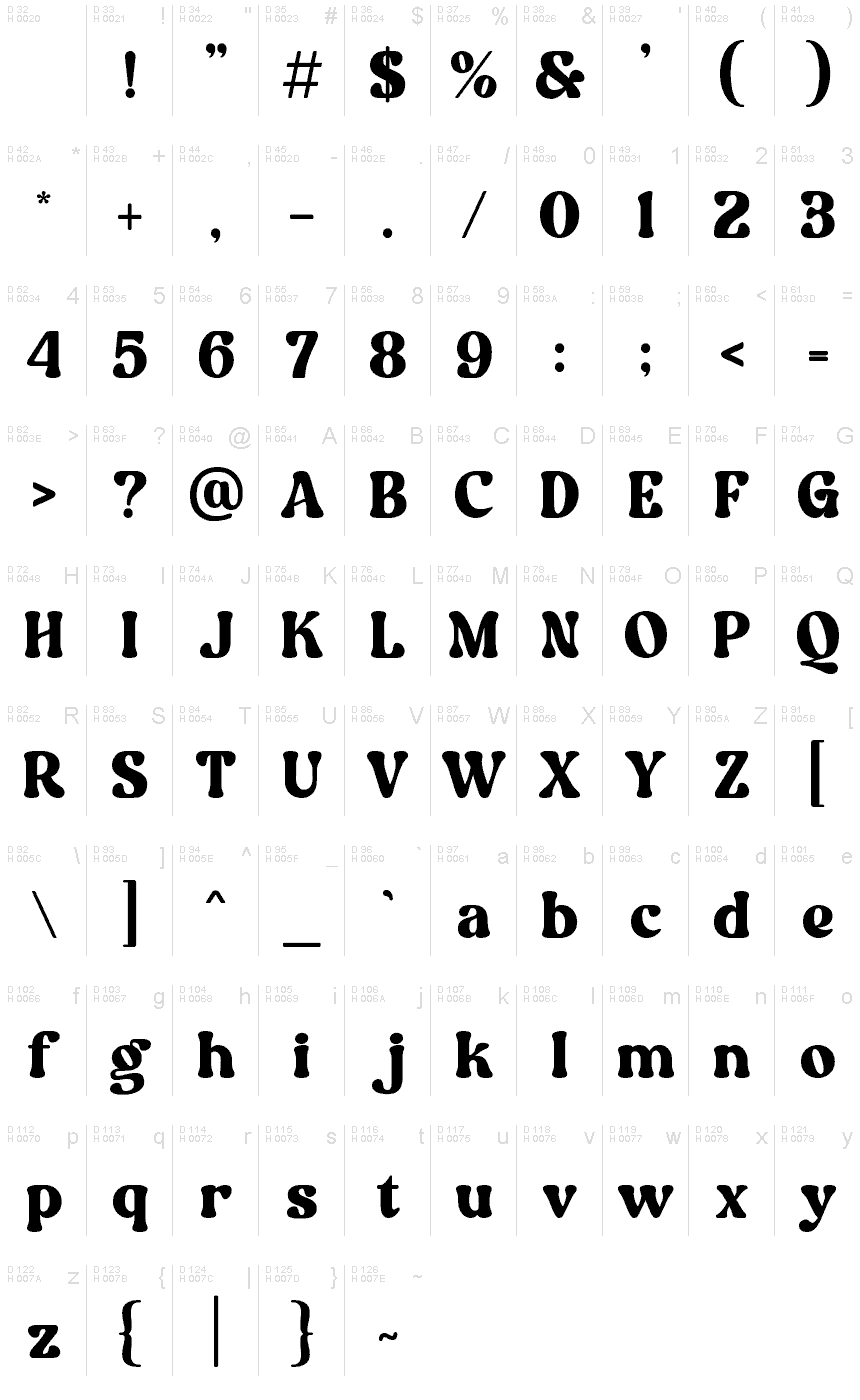
NCL Aekabih Muskey
NCL Aekabih Muskey font by Enxyclo Studio is a bold display font with decorative elements and ornate details. The vintage-inspired style brings to mind nostalgic charm with the use of unusual disjointed shapes and straight-cut edges. This theatrical free font incorporates both uppercase letterforms and allcaps variations in addition to numeral characters.
Use NCL Aekabih Muskey for movie and book titles, music album covers, magazines, website headers, posters, flyers, product packaging design like apparel labels or boxes. Other ways include branding projects such as logos for restaurants or coffee shops that invoke a sense of retro elements seen also in t-shirt typography designs.